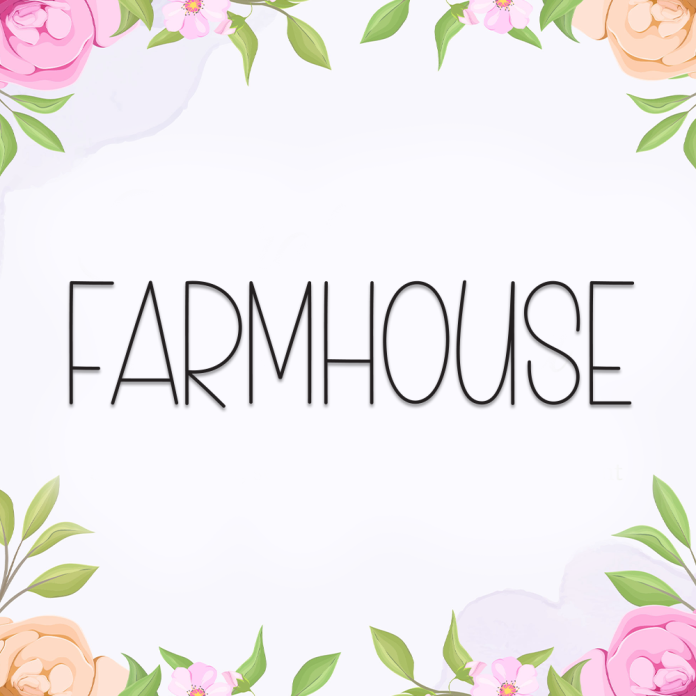
Farmhouse is a warm and welcoming display font inspired by the simplicity and beauty of rural living. With its handcrafted feel and vintage touch, this font captures the cozy, rustic atmosphere of country homes, barn wood signs, and farmers' markets.
Ideal for farmhouse-style home decor, product labels, DIY projects, and branding that needs a touch of authenticity and tradition.
Rustic and handcrafted display style
Perfect for signs, invitations, and cozy branding
Bring the charm of the countryside into your designs with the timeless elegance of Farmhouse!